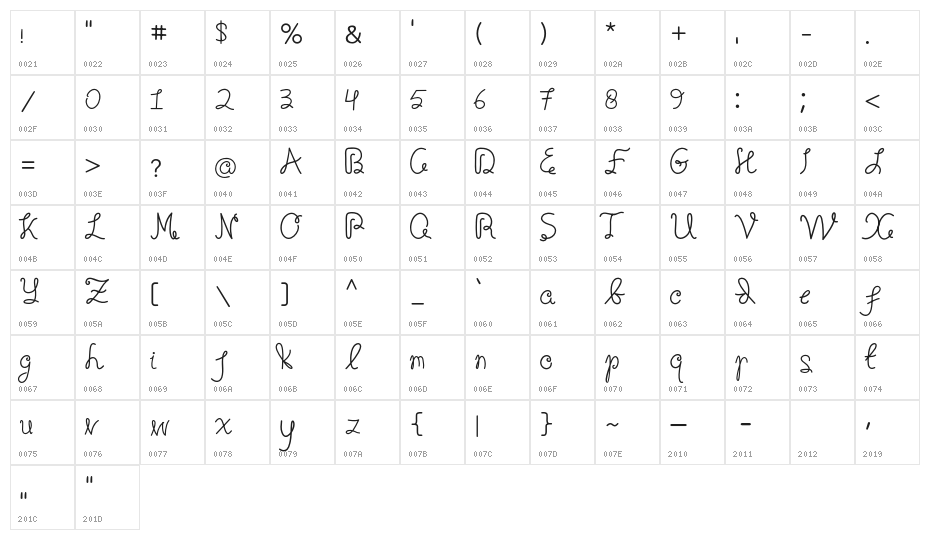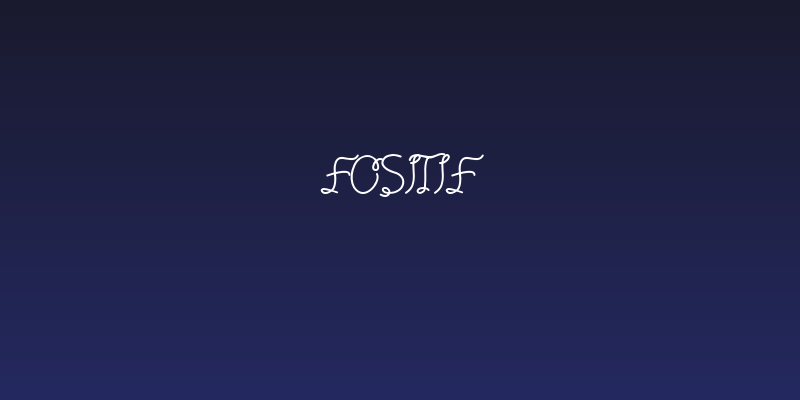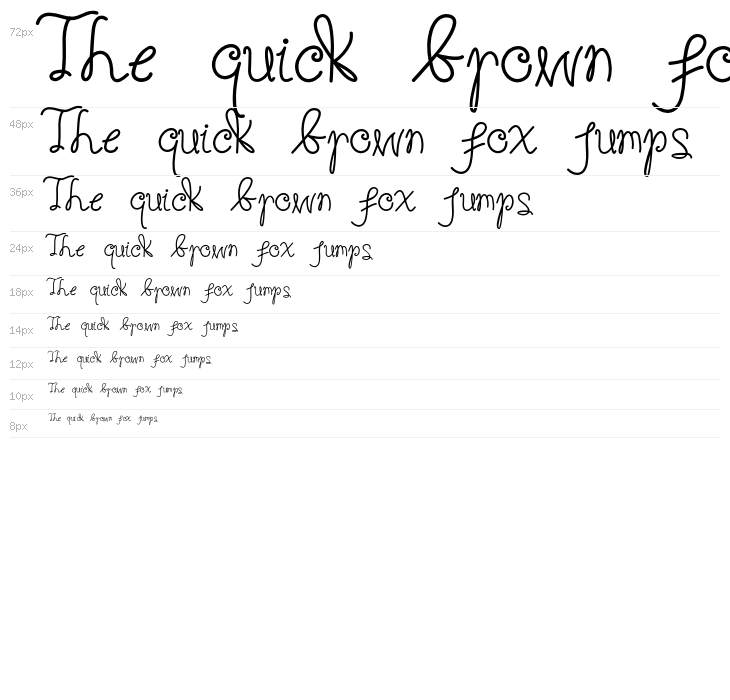
fositif Font
fositif Description
This font features a playful and whimsical script style with a handwritten appearance. The letters are connected with smooth, flowing strokes that give it a casual and friendly feel. The uppercase letters are distinct with unique loops and curves, while the lowercase letters maintain a consistent style with slightly exaggerated ascenders and descenders. The numbers and special characters are designed to match the overall aesthetic, ensuring a cohesive look across all glyphs. This font is ideal for projects that require a personal touch or a creative flair.
| Overall Style | Casual, Whimsical |
| Use Case | Logos, Invitations, Social Media Graphics |
| Proposed Projects | Greeting cards, invitations, personal branding, creative posters, and social media graphics. |